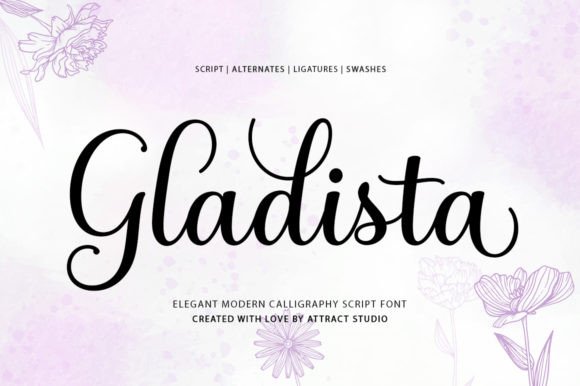
Introducing Gladista Font: The Elegant and Timeless Choice for Your Design Projects
Are you looking for a font that exudes elegance and sophistication? Look no further than Gladista Font, a beautiful and flowing handwritten font that is perfect for adding a touch of class to your design projects. With its incredibly distinct and timeless style, Gladista Font is sure to capture the hearts of designers and non-designers alike.
What Makes Gladista Font Special?
- Elegant Touch: Gladista Font is described by an elegant touch that sets it apart from other fonts. Its flowing lines and curves create a sense of movement and fluidity, making it perfect for designs that require a touch of sophistication.
- Distinct and Timeless Style: Gladista Font has an incredibly distinct and timeless style that will make your designs stand out. Whether you’re creating a logo, a brochure, or a website, Gladista Font is sure to add a touch of elegance and sophistication.
The Many Uses of Gladista Font
Gladista Font is a versatile font that can be used in a variety of design projects. Here are just a few examples:
- Logos and Branding: Gladista Font is perfect for creating logos and branding materials that require a touch of elegance and sophistication.
- Brochures and Flyers: Gladista Font is a great choice for brochures and flyers that need to make a lasting impression.
- Websites and Blogs: Gladista Font can be used to add a touch of elegance and sophistication to websites and blogs.
- Social Media Graphics: Gladista Font is perfect for creating social media graphics that require a touch of class and sophistication.
The Benefits of Using Gladista Font
There are many benefits to using Gladista Font in your design projects. Here are just a few:
- Elegance and Sophistication: Gladista Font adds a touch of elegance and sophistication to any design project.
- Versatility: Gladista Font can be used in a variety of design projects, from logos and branding materials to brochures and flyers.
- Timeless Style: Gladista Font has a timeless style that will never go out of fashion.
Tips for Using Gladista Font
Here are a few tips for using Gladista Font in your design projects:
- Use it Sparingly: Gladista Font is a elegant and sophisticated font, so use it sparingly to avoid overwhelming your design.
- Pair it with Other Fonts: Gladista Font can be paired with other fonts to create a unique and interesting design.
- Experiment with Different Sizes: Gladista Font can be used at different sizes to create a variety of effects.
- Use it for Headings: Gladista Font is perfect for headings and titles, where its elegant and sophisticated style can really shine.
In conclusion, Gladista Font is a beautiful and elegant handwritten font that is perfect for adding a touch of class and sophistication to your design projects. With its incredibly distinct and timeless style, Gladista Font is sure to capture the hearts of designers and non-designers alike. Whether you’re creating a logo, a brochure, or a website, Gladista Font is a great choice.